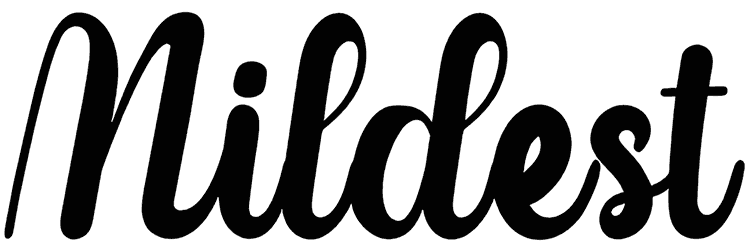
Mildest Font
Nothing like Mildest makes you feel nostalgic and personal for simpler times. This handwritten font is suitable for those who are active in fashion and clothing, are fond of tattoos, or want an exciting wedding card.
So, if you need a script font with much potential to overcome your competitors, you can get help from Mildest. The presence of numbers in this collection will maintain its power to communicate effectively with the customer.